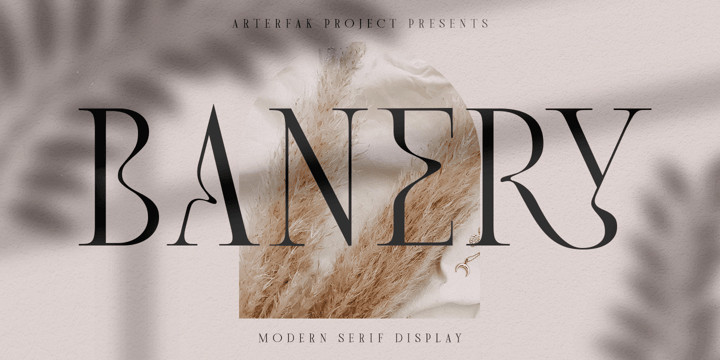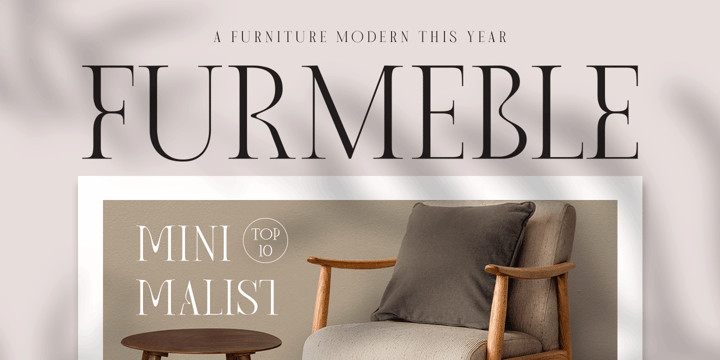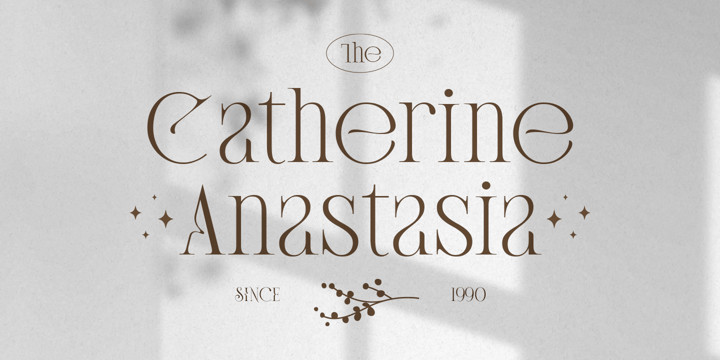
Banery Font
Banery FontBanery is a minimalist serif in modern style. Made with geometric shapes and high contrast of strokes, also accompanied by alternates characters with unique shapes, and full of beautiful twists which give a pretty, elegant, and exclusive impression.
Banery is very suitable for use on various media such as posters, magazines, catalogs, logos, logotypes, labels, flyers, and branding. You can use this font, especially on minimalist themes such as furniture, invitation, wedding, fashion, beauty, real estate, perfumery, and many more.